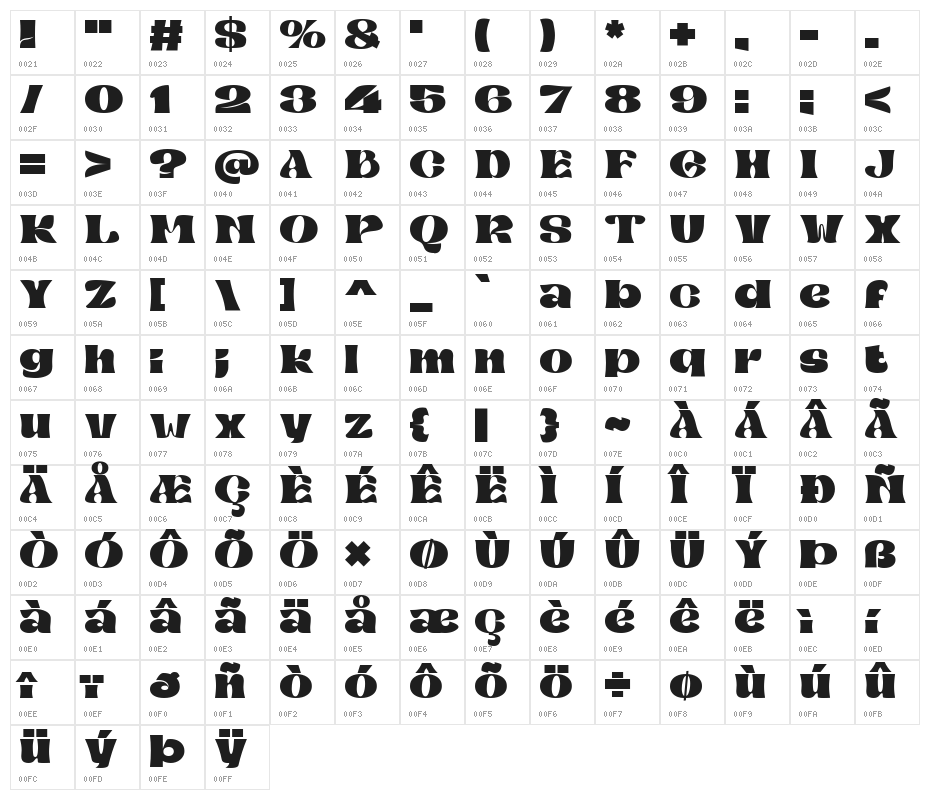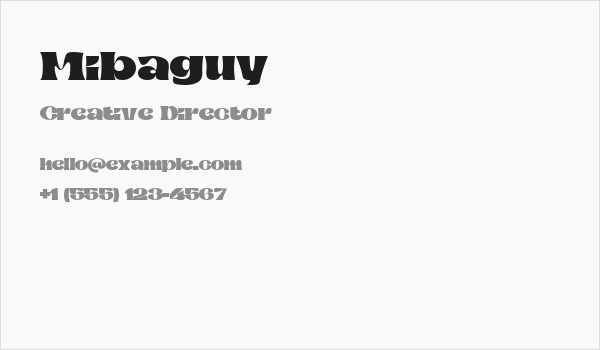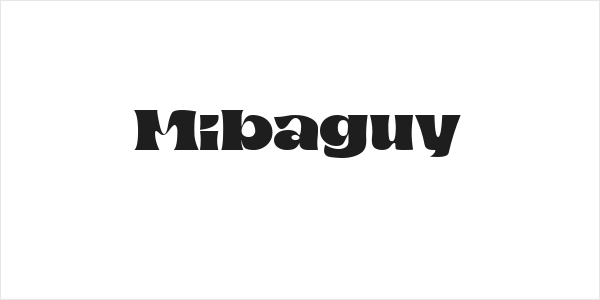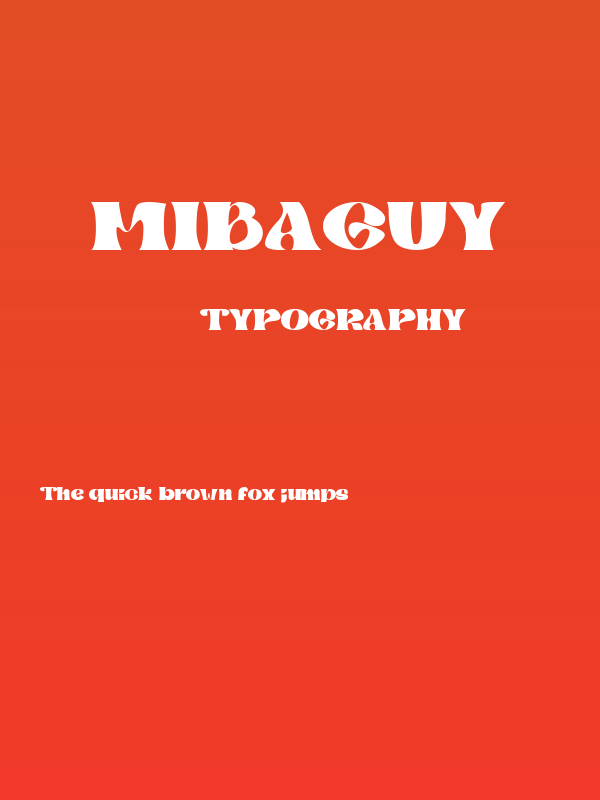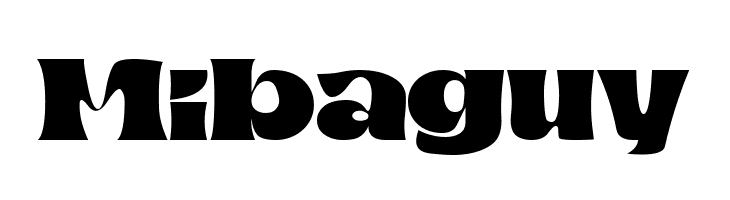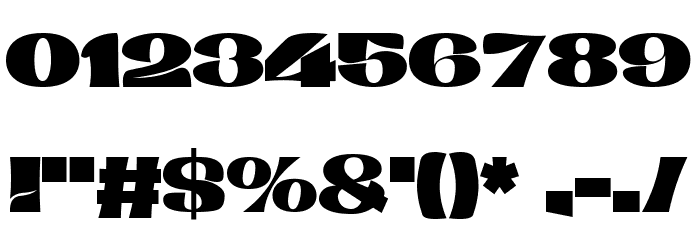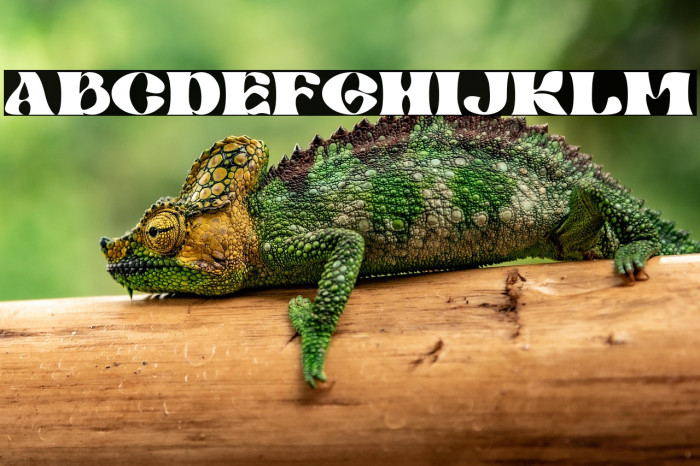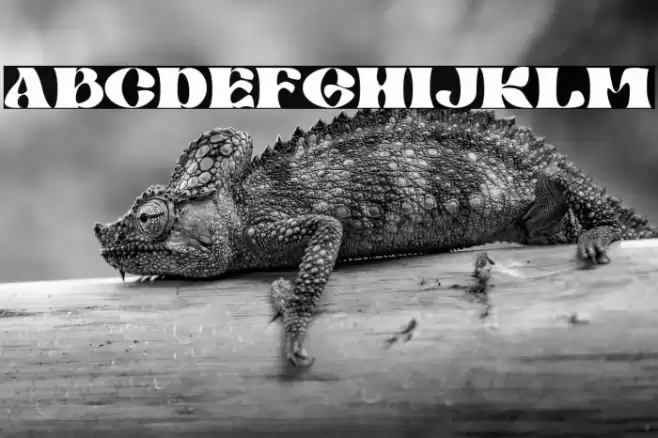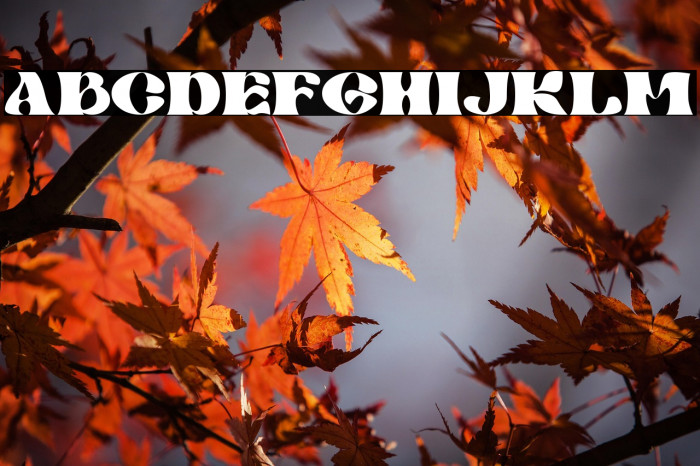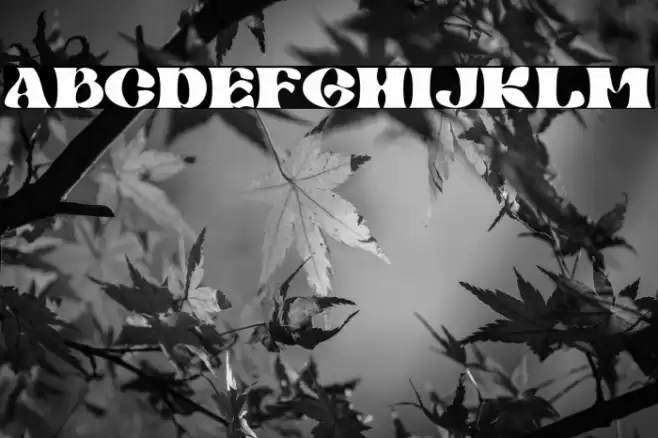
Mibaguy Font
Mibaguy Description
This font features a bold and playful design with exaggerated curves and thick strokes, creating a strong visual impact. The characters are uniquely styled with a mix of rounded and angular elements, giving it a dynamic and energetic appearance. The uppercase and lowercase letters maintain a consistent weight, while the numbers and special characters follow the same bold aesthetic. The font's distinctive style makes it suitable for eye-catching designs.
| Overall Style | Decorative |
| Proposed Projects | Ideal for posters, branding, and creative projects that require a strong visual impact. |